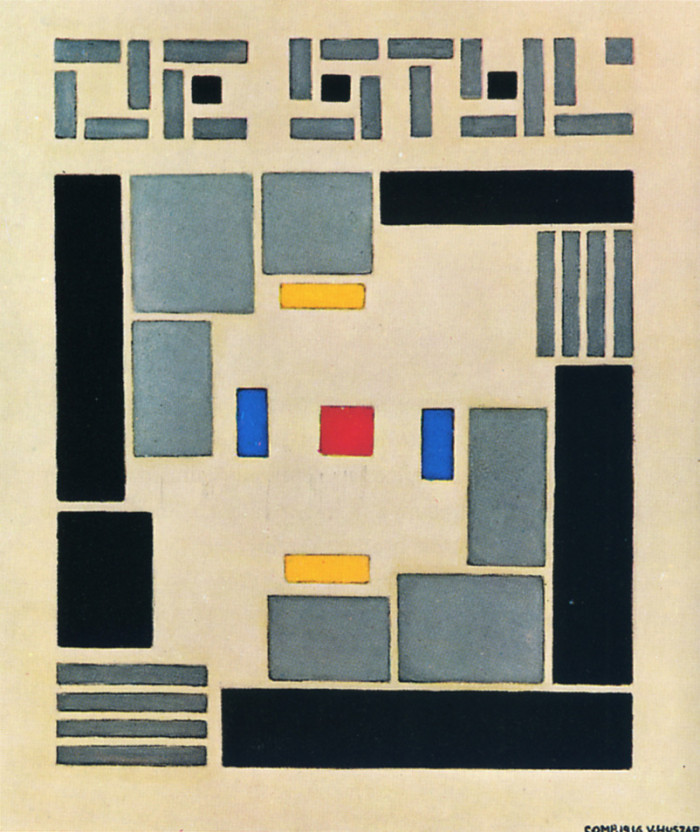
You might notice that the D looks slightly different than that on the original DESTIJL nameplate. I had to differentiate it from the O a bit. So if you want to match the original D, you could just use the O.
No, I am not Dutch, however I did include the IJ ligature. Of course, you can just use the Y if you can not access the IJ.
DE STIJL magazine was designed by Theo van Doesburg, but the name plate is actually a design by Vilmos Huszár, from 1916. The version by van Doesburg is from 1917, not 1923 ;-) But besides the historical complaints, I really like your expansion of the character set :-)